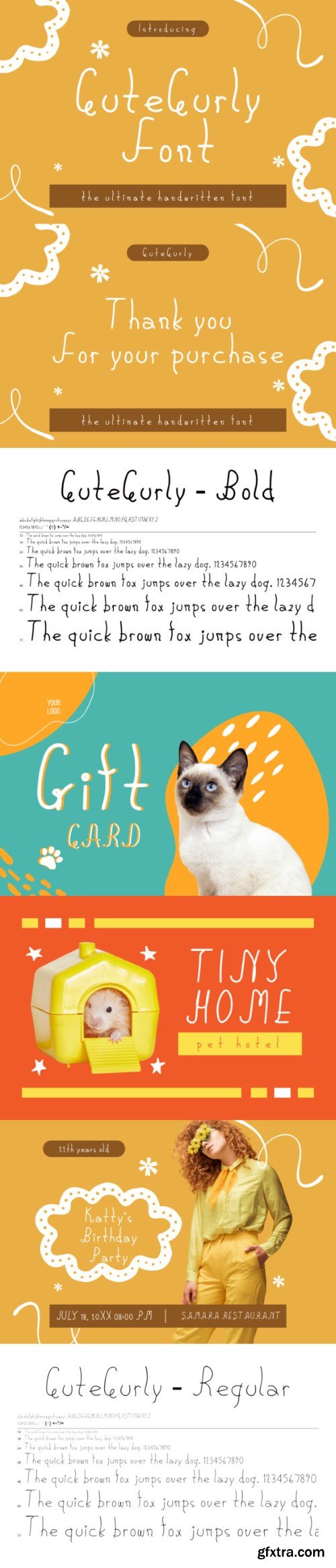
cutecurly字体
Introducing CuteCurly, the ultimate handwritten font that adds a touch of whimsical charm to any project! With its gentle curves and playful strokes, this font brings a delightful flair to invitations, greeting cards, posters, and more. Whether you’re planning a birthday party or designing a craft, CuteCurly is a must-have for all your creative endeavors. Let your imagination run wild with this friendly and oh-so-cute font!